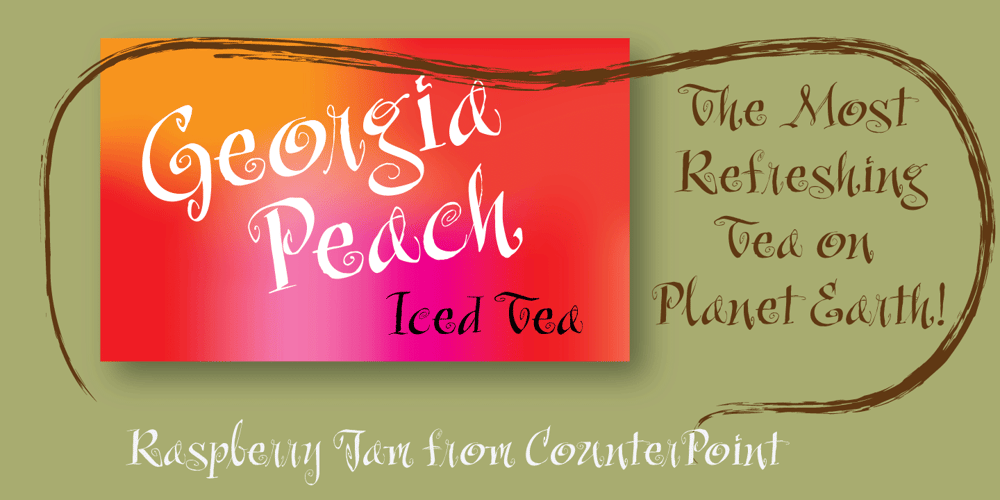
Raspberry Jam Font Family was designed by Jason Anthony Walcott and published by CounterPoint Type Studio. Raspberry Jam contains 1 styles and family package options. A whimsical and fun calligraphy style font that is perfect for informal and fun occasions. The design was inspired by a series of scrapbooking style fonts that I have been exploring over the past couple of years. Inspired by a hand lettered sample in a lettering how to book. Contains language support for both Latin-based and most Eastern European languages.